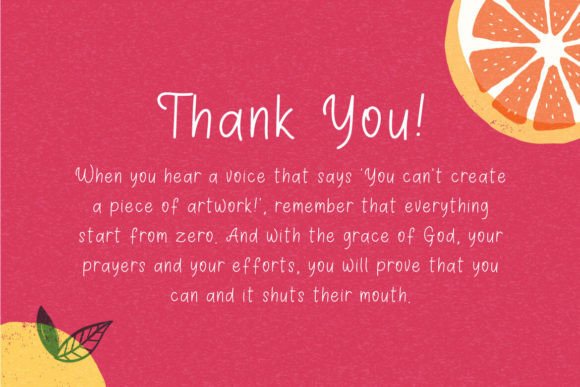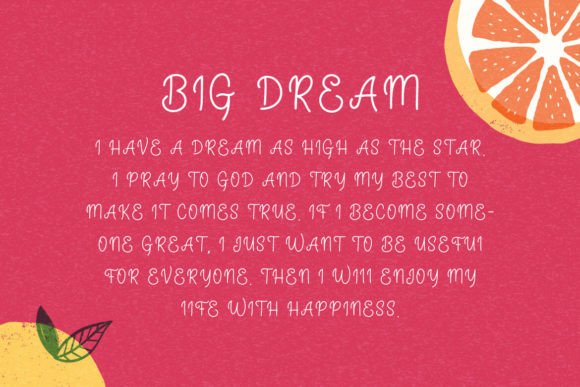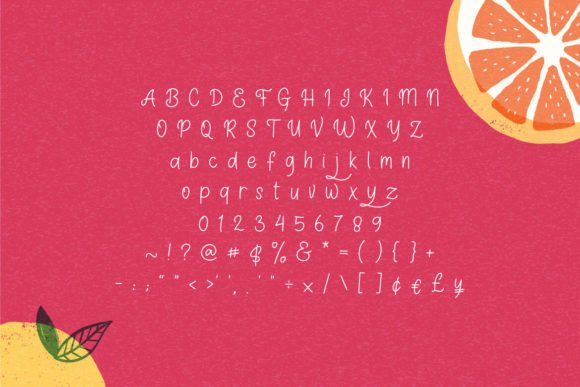
Fynestime Font: The Sweet and Friendly Handwritten Font for Your Design Needs
Are you a designer or crafter looking for a font that can add a personal touch to your projects? Look no further than Fynestime Font! This sweet and friendly handwritten font is perfect for a wide range of designs, from creative crafts to digital projects. In this article, we’ll take a closer look at Fynestime Font, its features, and how you can use it to take your designs to the next level.
What is Fynestime Font?
Fynestime Font is a beautiful, handwritten font that exudes a natural and unique style. Its friendly and approachable vibe makes it perfect for designs that require a personal touch. Whether you’re creating a logo, a poster, or a digital product, Fynestime Font is sure to make your project stand out.
Key Features of Fynestime Font
- Unique and Natural Style: Fynestime Font has a distinct, handwritten style that’s both natural and unique. Its imperfections and quirks make it look like it was written by hand, adding a personal touch to your designs.
- Versatile: Fynestime Font is incredibly versatile and can be used for a wide range of designs, from creative crafts to digital projects. Its friendly and approachable vibe makes it perfect for designs that require a personal touch.
- Easy to Read: Despite its handwritten style, Fynestime Font is easy to read, making it perfect for body text and headings.
Use Cases for Fynestime Font
Fynestime Font is perfect for a wide range of design projects, including:
- Logos and Branding: Fynestime Font is perfect for creating unique and memorable logos that reflect your brand’s personality.
- Posters and Flyers: Fynestime Font can add a personal touch to your posters and flyers, making them stand out from the crowd.
- Digital Products: Fynestime Font is perfect for digital products, such as ebooks, printables, and planners.
- Crafts and DIY Projects: Fynestime Font can be used for a variety of craft and DIY projects, such as handmade cards, gift tags, and scrapbooking.